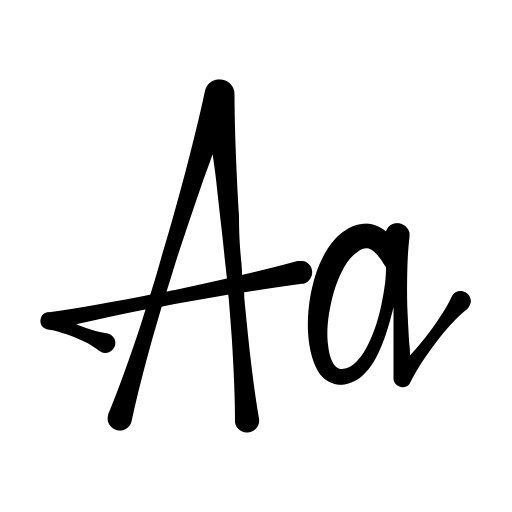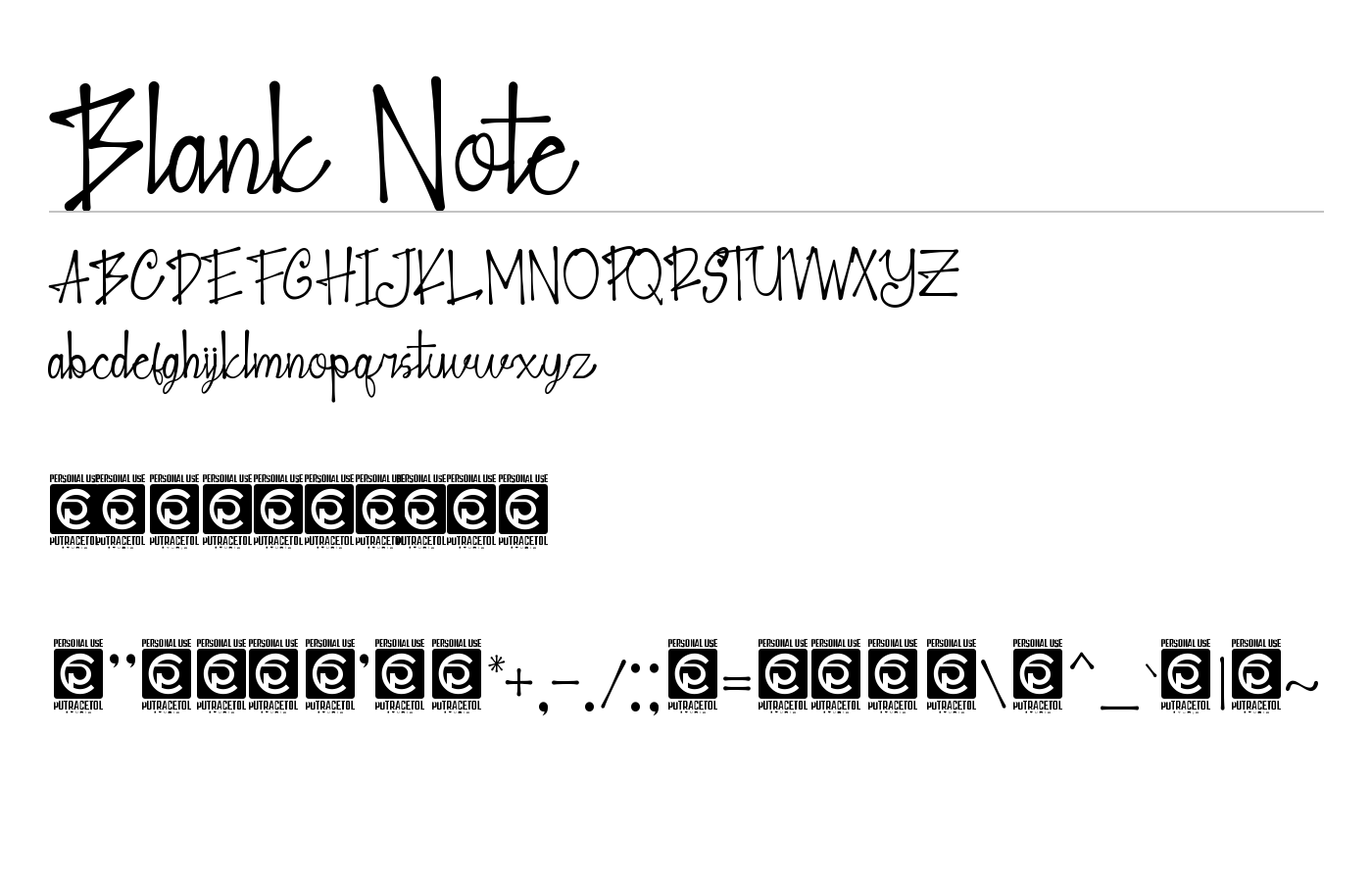
Blank Note is a whimsical handwritten font with a casual, playful style. Its tall, thin letterforms and irregular strokes give it an organic, lively feel, making it perfect for creative designs that need a personal, approachable touch like informal notes, greeting cards, or artistic branding. This font works best in headlines or display uses where its unique character can shine and bring a sense of warmth and individuality.
Blank Note Font
About Blank Note Font
| Font family | Blank Note Font |